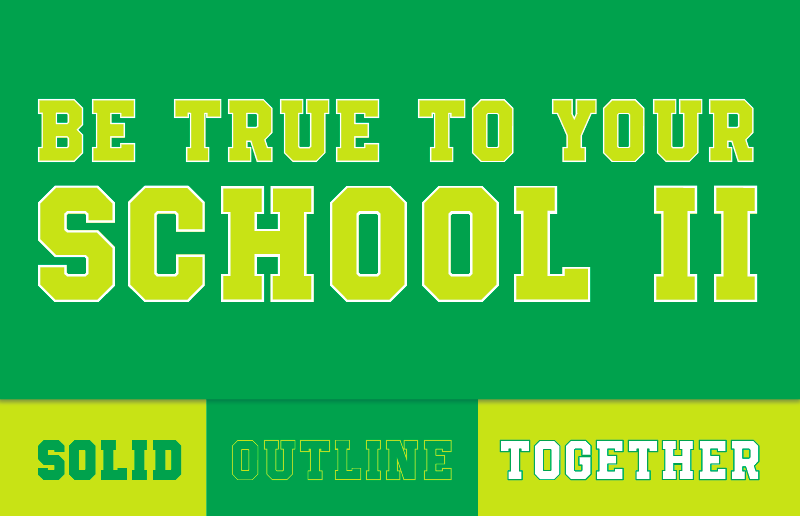
Font name: | Be True To Your School II |
A new version of the popular "Be True to Your School"-font. This time with a really bold solid version. And a outline version. They can be used separately or on top of each other. PayPal-donations of $5 (that's really cheap) or more gives you a commercial license (for both fonts) for 1-5 users, and if the font is made into a PRO version later on then you get a copy of that, free of any extra charge. The donations will be used to buy a better font creation tool. To keep my sanity and to make even greater fonts. Thanks for you support. |